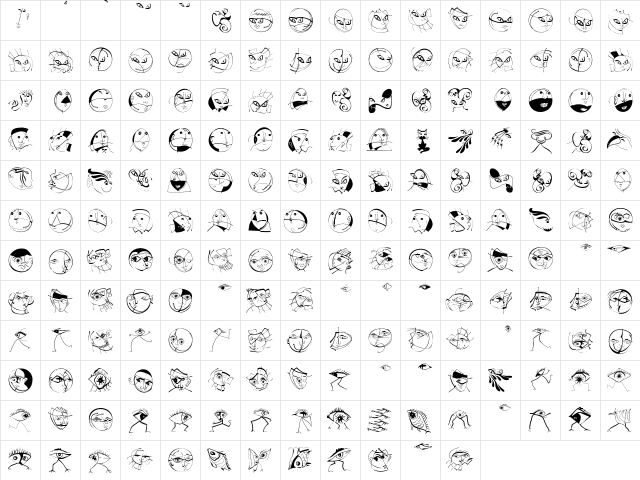
HelloSirPeter Regular
Design Context for HelloSirPeter Typeface
HelloSirPeter is a composed and adaptable typeface that performs quietly and consistently across a wide range of design contexts.